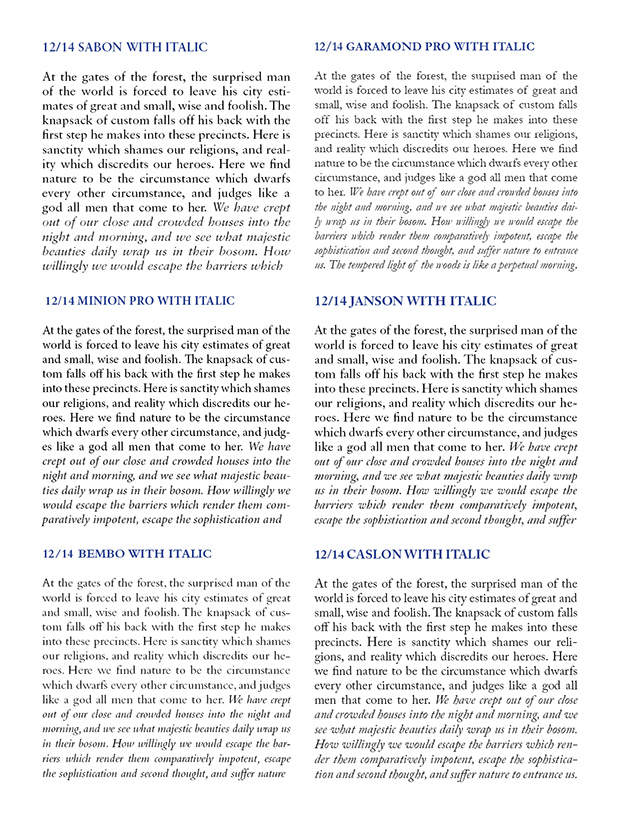
Best Fonts For Interior Book Design . The most common serif fonts used in printed books are: It not only plays a key role in improving readability but also helps make your book look more.
Create personalized art pieces, wall decals, or decorative items featuring your chosen font. A book, by nature, is a long reading. The idea is to use a font that is easy on the eye of the reader and not necessarily what font stands out the most.
The idea is to use a font that is easy on the eye of the reader and not necessarily what font stands out the most. Web custom artwork and decor: The idea is to use a font that is easy on the eye of the reader and not necessarily what font stands out the most. The most common serif fonts used in printed books are:
Best Fonts For Interior Book Design - Web home > blog > book design, book typography, interior design > 5 favorite free fonts for interior book design 2021. There’s no bigger decision you make in designing a book than picking the body typeface. The most common serif fonts used in printed books are: Web custom artwork and decor: Web 5 best interior design fonts.
Best Fonts For Interior Book Design - There’s no bigger decision you make in designing a book than picking the body typeface. Create personalized art pieces, wall decals, or decorative items featuring your chosen font. It not only plays a key role in improving readability but also helps make your book look more. Web finding the right font is the most important part of book design. A.
Best Fonts For Interior Book Design - Web custom artwork and decor: The idea is to use a font that is easy on the eye of the reader and not necessarily what font stands out the most. The most common serif fonts used in printed books are: Web while there are literally thousands of fonts to choose from, a good designer will focus on the right font.
Best Fonts For Interior Book Design - Web home > blog > book design, book typography, interior design > 5 favorite free fonts for interior book design 2021. Web custom artwork and decor: There’s no bigger decision you make in designing a book than picking the body typeface. Web 5 best interior design fonts. A book, by nature, is a long reading.
Best Fonts For Interior Book Design - Web custom artwork and decor: Web while there are literally thousands of fonts to choose from, a good designer will focus on the right font for your work. A book, by nature, is a long reading. Create personalized art pieces, wall decals, or decorative items featuring your chosen font. When you are browsing the different types.
Best Fonts For Interior Book Design - A book, by nature, is a long reading. There’s no bigger decision you make in designing a book than picking the body typeface. Web finding the right font is the most important part of book design. Web home > blog > book design, book typography, interior design > 5 favorite free fonts for interior book design 2021. Create personalized art.
Best Fonts For Interior Book Design - Web finding the right font is the most important part of book design. The most common serif fonts used in printed books are: Web 5 best interior design fonts. The idea is to use a font that is easy on the eye of the reader and not necessarily what font stands out the most. Web home > blog > book.
Best Fonts For Interior Book Design - It not only plays a key role in improving readability but also helps make your book look more. The most common serif fonts used in printed books are: Web 5 best interior design fonts. Web custom artwork and decor: There’s no bigger decision you make in designing a book than picking the body typeface.
Best Fonts For Interior Book Design - Web finding the right font is the most important part of book design. The most common serif fonts used in printed books are: Web while there are literally thousands of fonts to choose from, a good designer will focus on the right font for your work. Create personalized art pieces, wall decals, or decorative items featuring your chosen font. Web.
Best Fonts For Interior Book Design - It not only plays a key role in improving readability but also helps make your book look more. Create personalized art pieces, wall decals, or decorative items featuring your chosen font. When you are browsing the different types. Web finding the right font is the most important part of book design. Web home > blog > book design, book typography,.
Best Fonts For Interior Book Design - A book, by nature, is a long reading. There’s no bigger decision you make in designing a book than picking the body typeface. The idea is to use a font that is easy on the eye of the reader and not necessarily what font stands out the most. It not only plays a key role in improving readability but also.
Best Fonts For Interior Book Design - The idea is to use a font that is easy on the eye of the reader and not necessarily what font stands out the most. Web certain fonts are a lot easier on the eye when reading especially for a longer duration. Web 5 best interior design fonts. Create personalized art pieces, wall decals, or decorative items featuring your chosen.